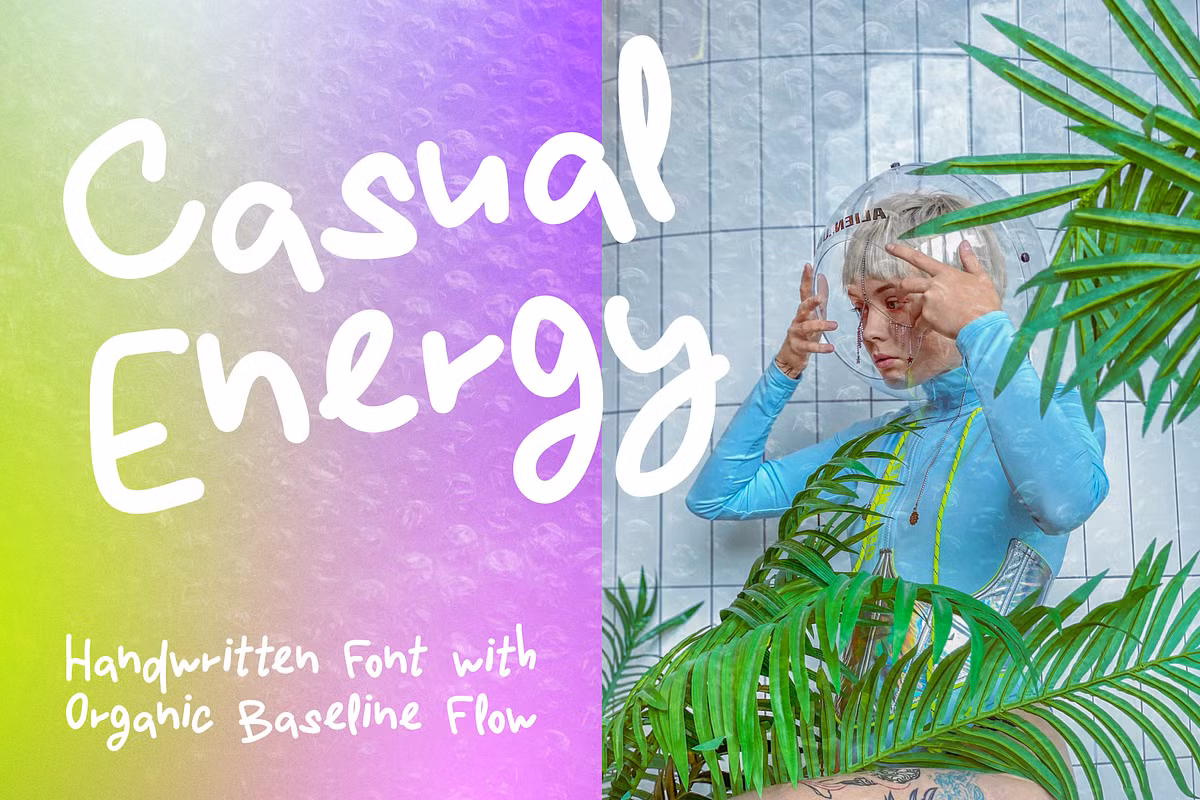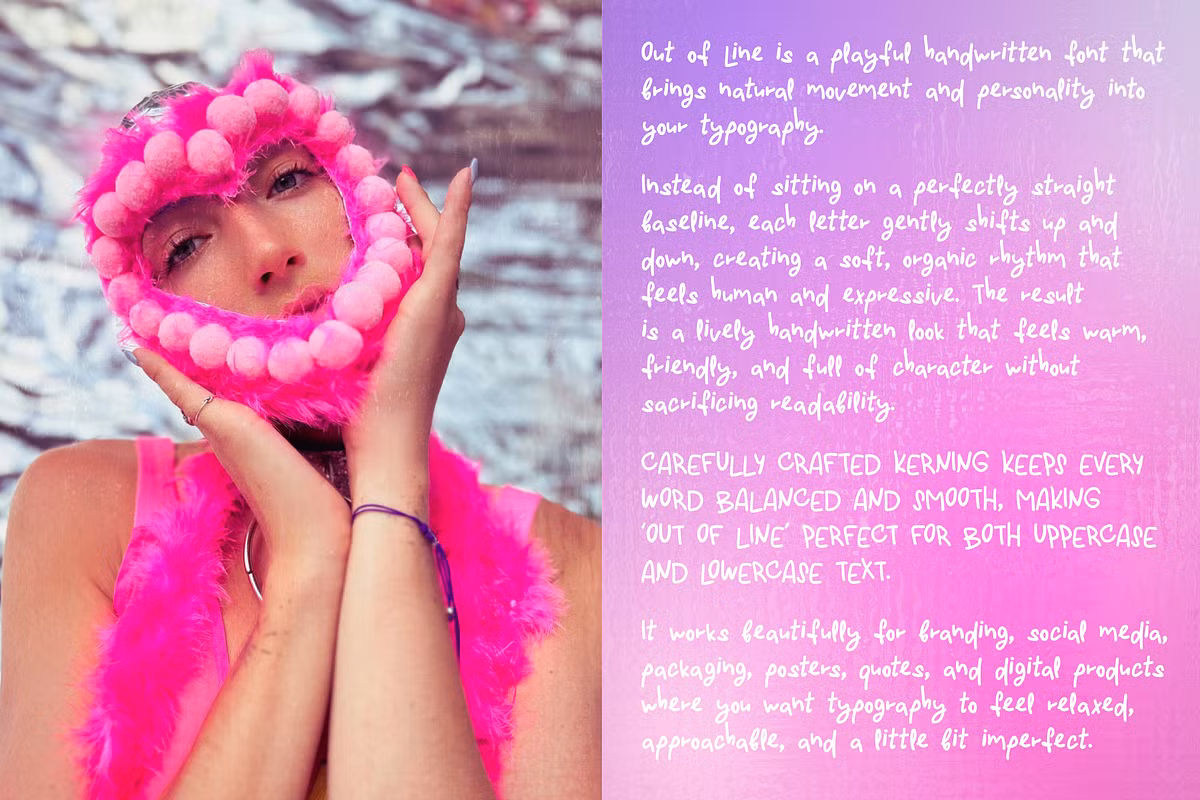
Out Of Line: Playful Casual Handwritten Font for Modern Design
Out Of Line: Casual Handwritten Font
Out Of Line: Playful Casual Handwritten Font for Modern Design
Introducing Out Of Line
Out Of Line is a really nice, casual font that looks like it was written by hand. It’s got a warm and playful feel to it, which makes it perfect for adding a personal touch to your designs. One of the things that makes it stand out is the way the letters are slightly offset from the baseline, which gives it a nice, dynamic flow. This means that the letters don’t all sit on the same line, but instead rise and fall in a way that looks really natural and organic. It’s a great choice for anything from invitations to branding projects, because it’s got a friendly, approachable feel that’s hard to resist. Plus, it’s elegant enough to work well in professional settings, but casual enough to make your designs feel more relaxed and creative. Overall, Out Of Line is a fantastic font for anyone who wants to add a little personality to their designs.
Sample display of the Out Of Line font showcasing its playful handwritten style
Example of Out Of Line’s playful design
Design Style of Out Of Line
The way Out Of Line looks is really unique because of how the letters flow naturally. This makes it stand out from other fonts that are more straight and rigid. Every letter is carefully made to look good with the others, so it’s easy on the eyes. The spaces between the letters are also just right, which helps the whole thing feel balanced. This font is great for projects that need a modern touch and a bit of personality. Because it looks like handwriting, but not too perfect, it can be used in lots of different situations – like fun posters or fancy invitations. It’s versatile and can fit in wherever you need it to.
Unique Features
Out Of Line has a lot of great features that make it really special.
• Uppercase & Lowercase Letters: The font includes a full set of both uppercase and lowercase letters, allowing for a variety of typographic expressions.
• Out Of Line is all set to take care of your text needs, complete with numbers and punctuation marks.
• Multilingual Support: This font is designed with multilingual support, making it accessible for a wider audience and perfect for international projects.
Highlighting the unique features of the Out Of Line font, including its characters
Out Of Line’s character set and multilingual features
Use Cases for Out Of Line
Out Of Line is really flexible and can be used in many different design situations. Let’s take a look at some of the best ways to use it.
• Branding: Create a memorable brand identity with Out Of Line. Its friendly and approachable style can help establish a connection with your audience.
• Social Media: Use this font to design eye-catching graphics for social media posts that stand out in a crowded feed.
• Packaging: The playful nature of Out Of Line makes it ideal for product packaging, giving a personal touch that appeals to consumers.
• Posters & Stickers: Perfect for promotional materials, Out Of Line adds character to posters and stickers, making your message more engaging.
• Quotes & Invitations: Whether you’re designing a quote graphic or an invitation, this font adds a warm, inviting feel that resonates with recipients.
• Digital Products & Editorial Design: Out Of Line can enhance digital products such as eBooks or blogs, as well as various editorial designs that require a touch of personality.
Visual examples of Out Of Line used in various design projects
Out Of Line in action across different design projects
When you’re working with Out Of Line, it’s a good idea to pair it with other fonts that complement it, so your design looks nice and harmonious. Here are a few suggestions for fonts that go well with Out Of Line.
• Sans-serif Fonts: Pair Out Of Line with clean sans-serif fonts like Montserrat or Open Sans for a modern look that balances the playful nature of the handwritten style.
• Serif Fonts: For a more classic feel, try pairing Out Of Line with a serif font like Merriweather. This combination brings a touch of elegance while maintaining a friendly vibe.
• Other Handwritten Fonts: You can also layer Out Of Line with other handwritten or script fonts for a dynamic, layered effect that emphasizes creativity.
Out Of Line is a fun, casual font that’s handwritten and adds a personal touch to your designs. It’s really versatile and works well for lots of things like branding, social media, and packaging. One of the cool things about it is how the letters flow along the baseline, and the spacing between them is really thoughtful. It’s also got a lot of features that make it useful, like supporting lots of languages and having a full set of characters. So, Out Of Line isn’t just a font – it’s a way to express yourself creatively. Try it out on your next project and see what you can come up with!